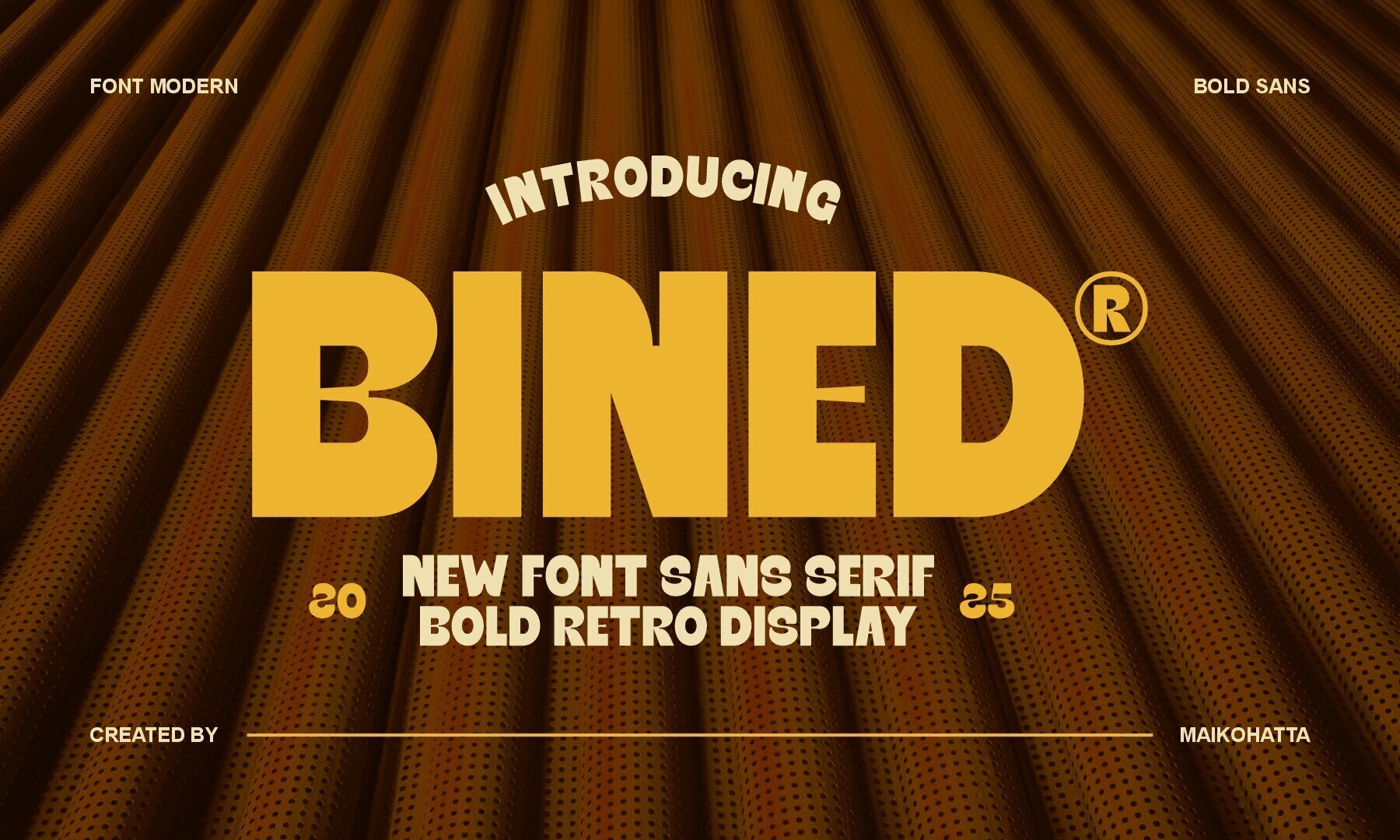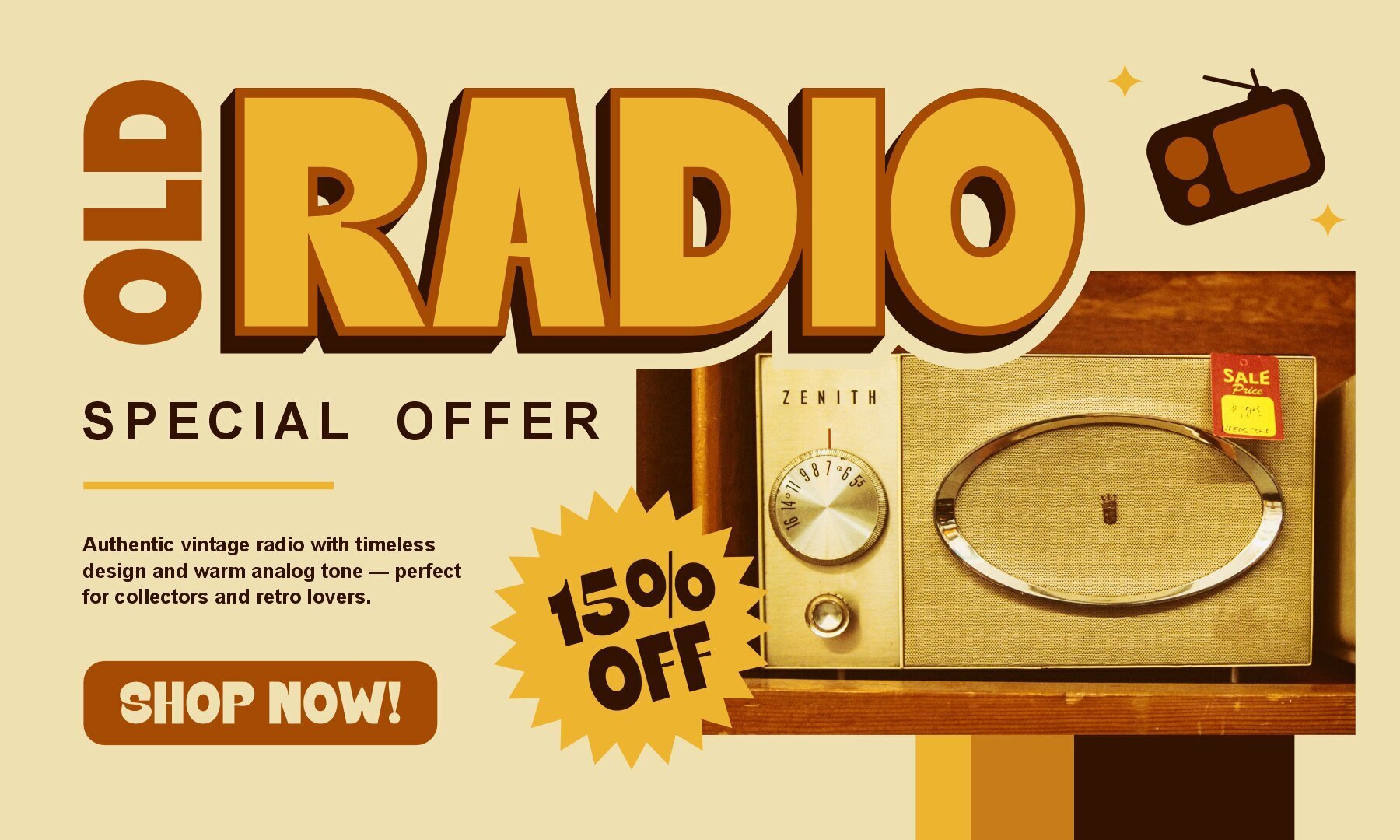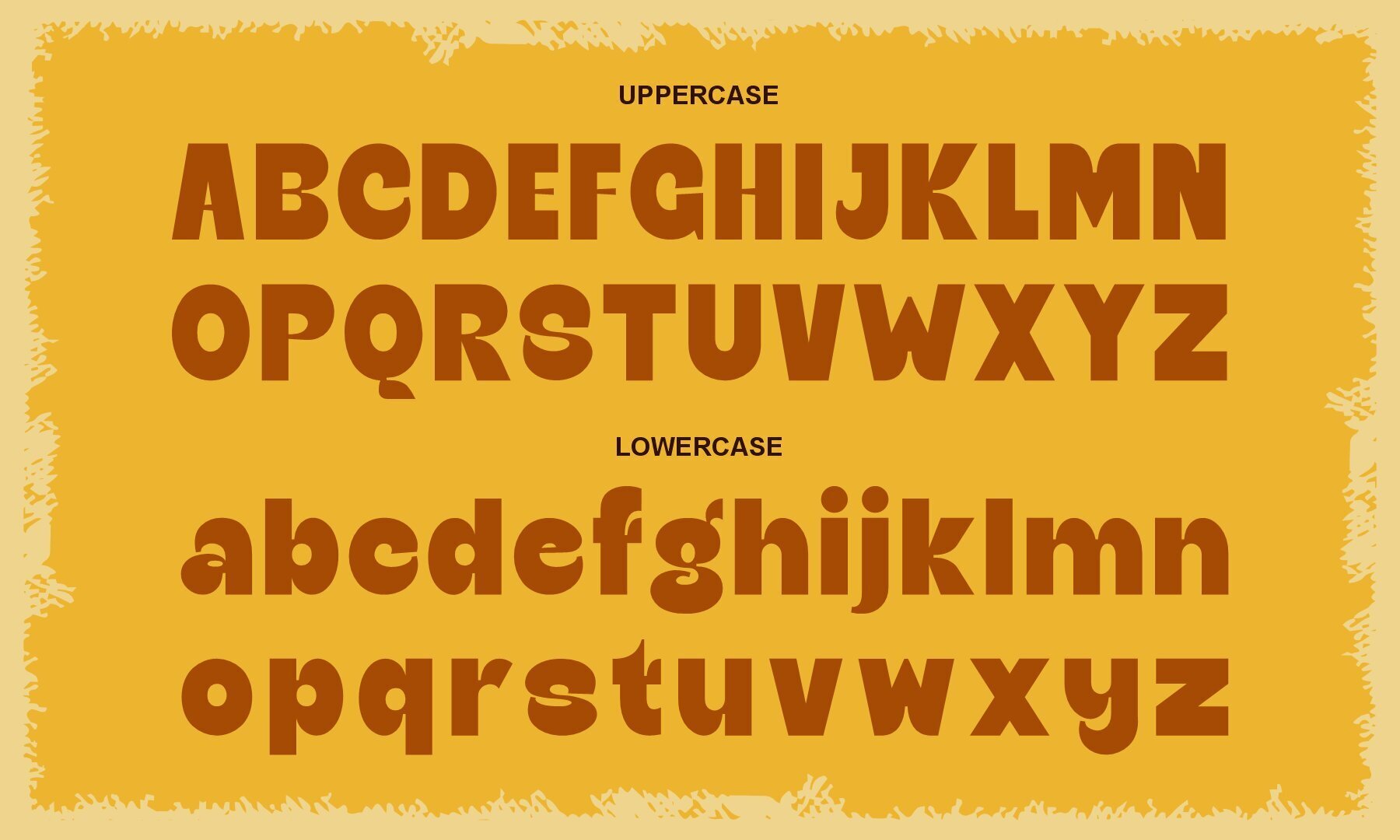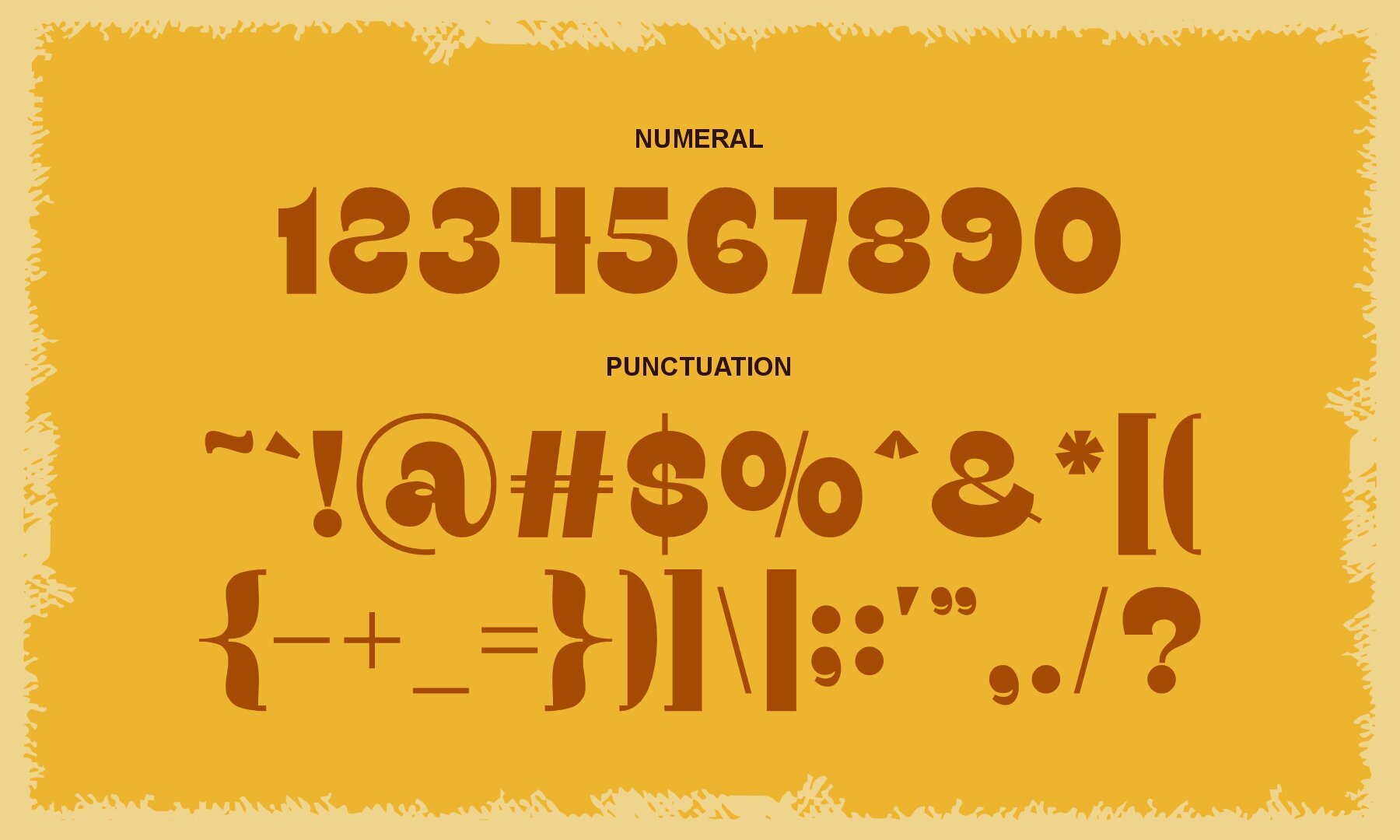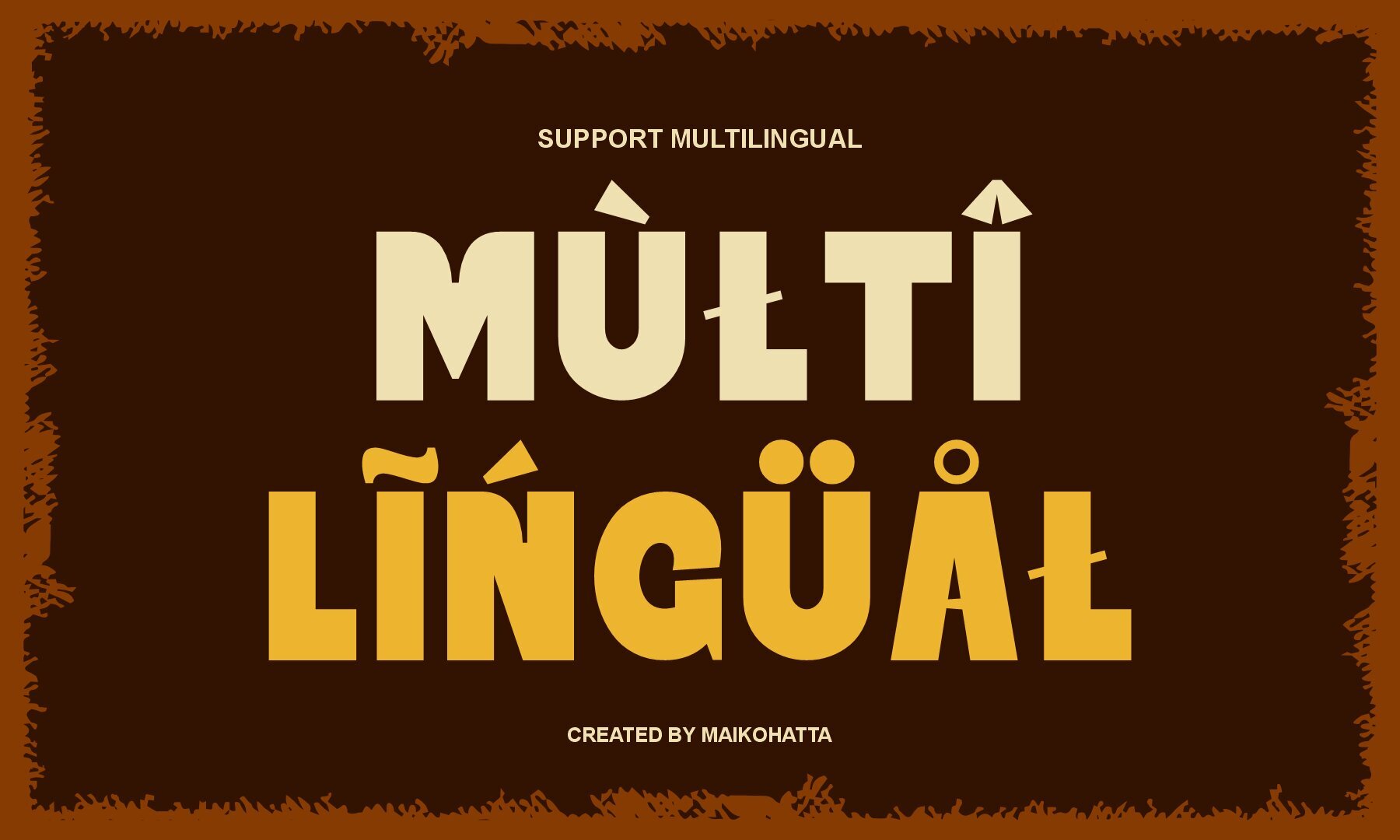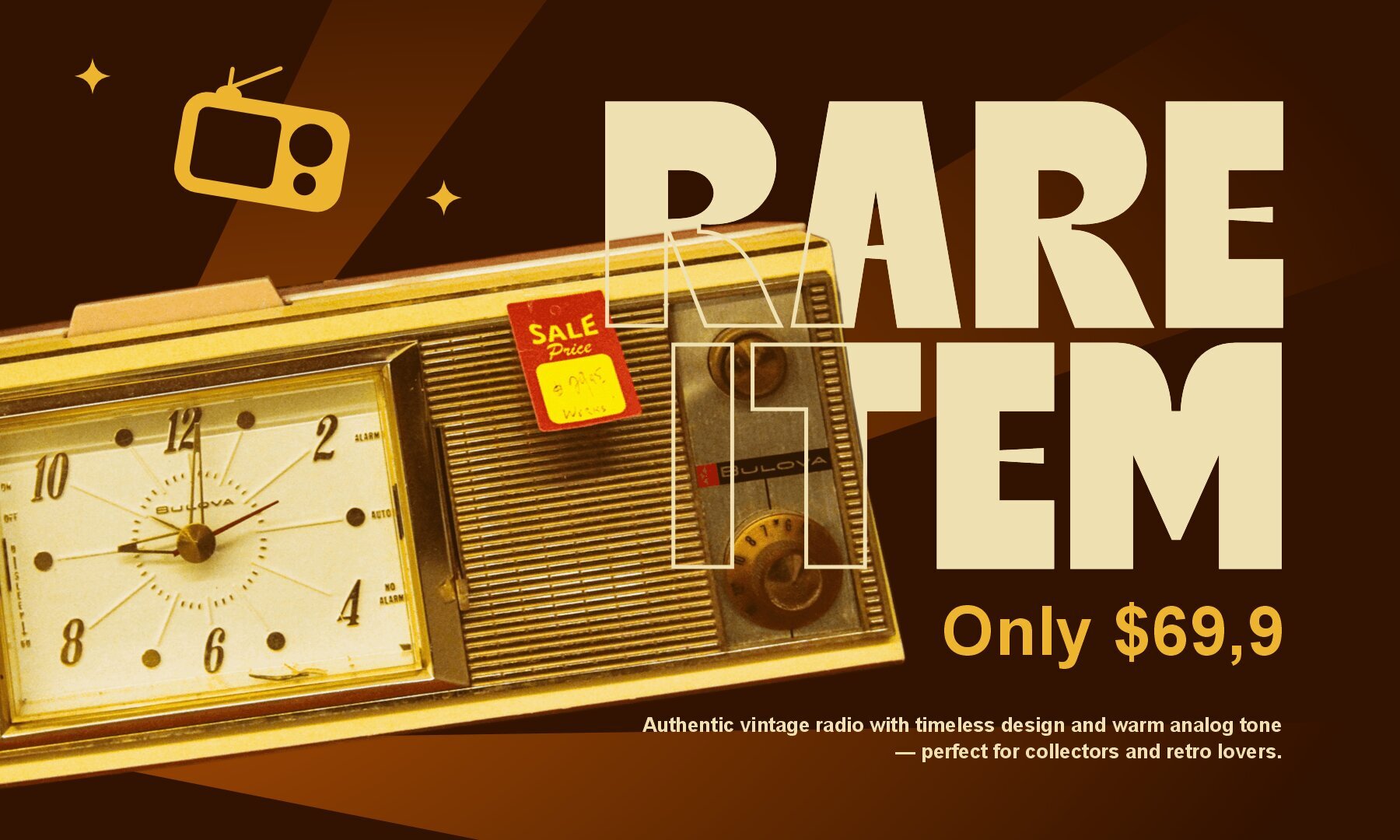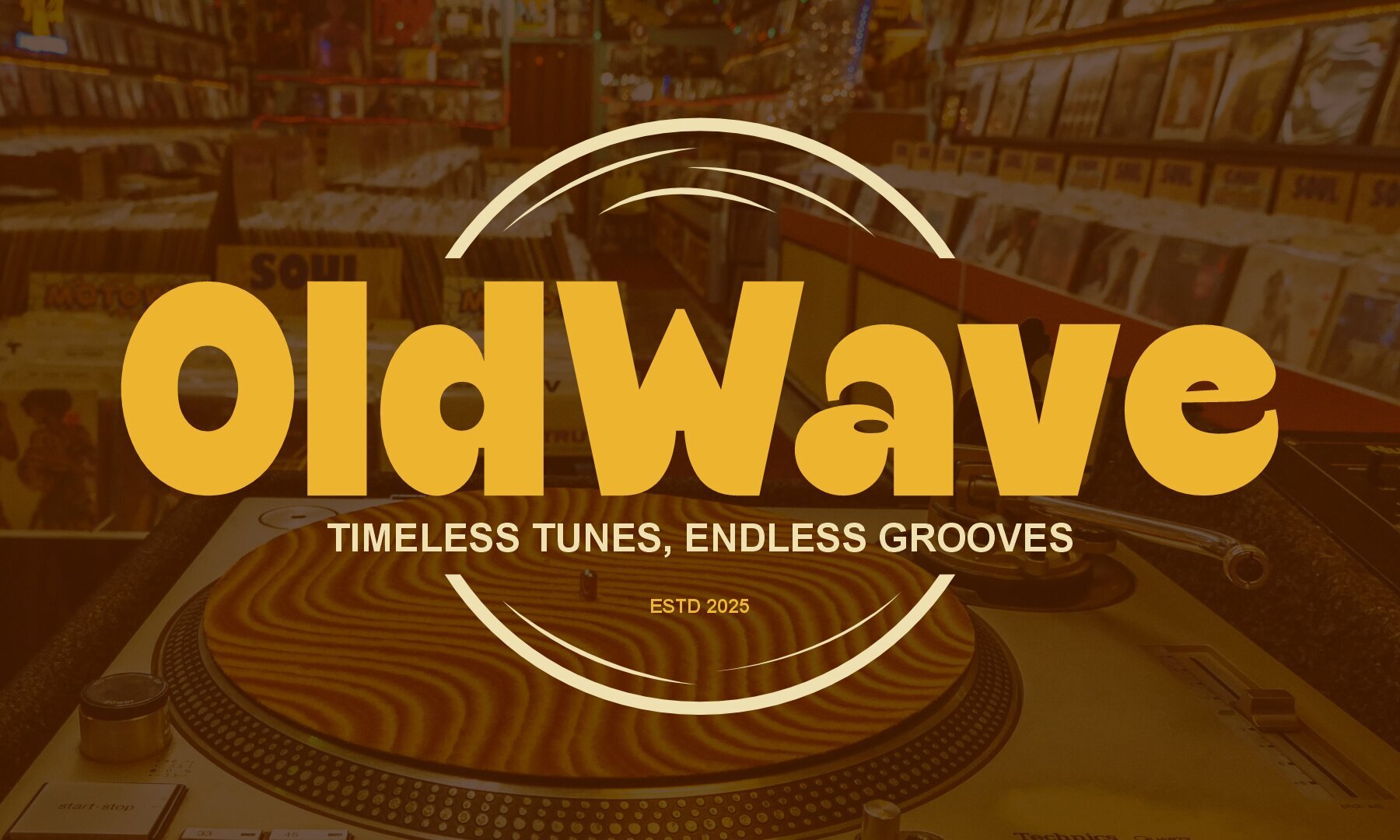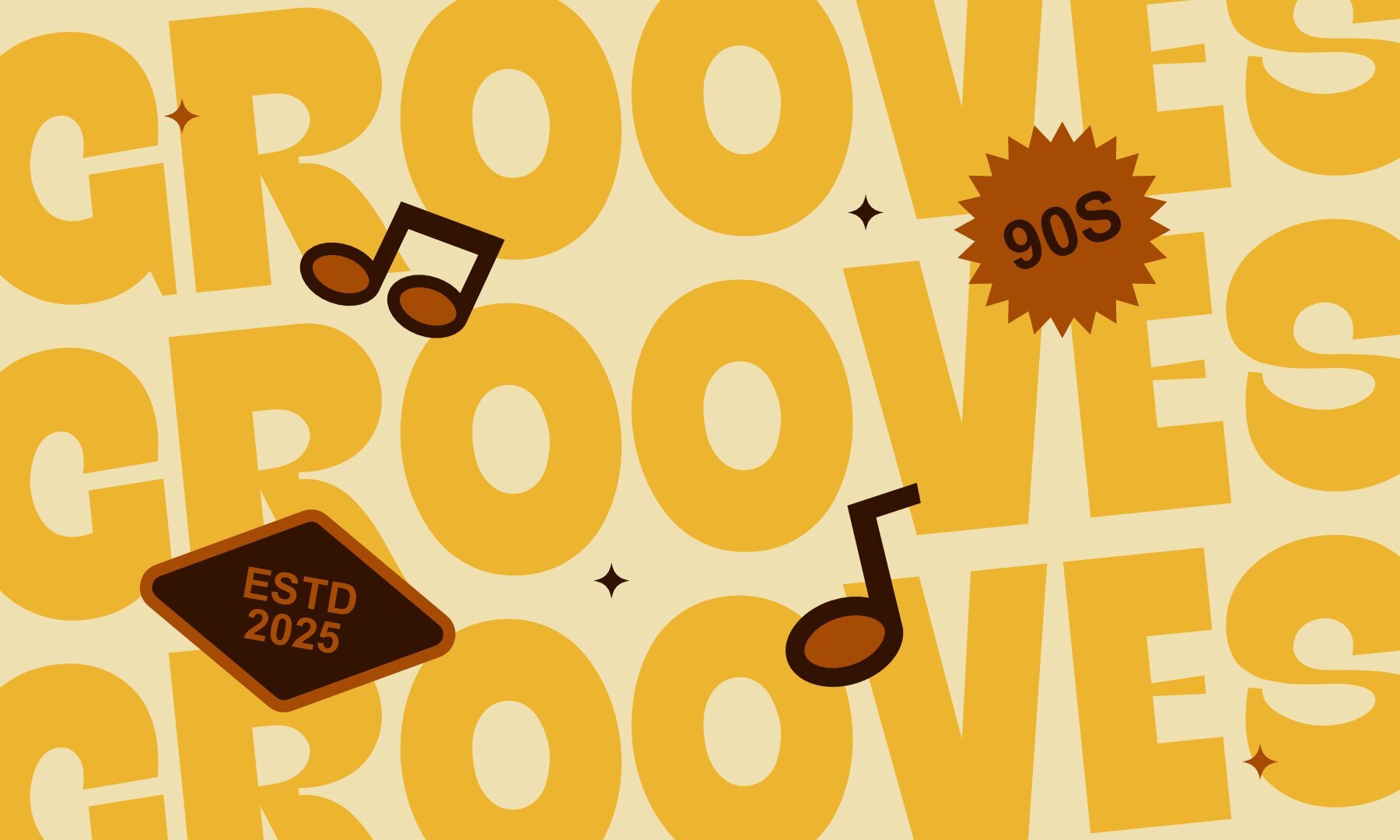
Bined Font
Bined
Introducing Bined, a modern sans serif typeface that artfully merges a bold retro aesthetic with a touch of contemporary vigor. Its thick, geometric letterforms make it ideal for commanding attention in headlines, logos, posters, and branding initiatives. Designed with precision and flair, Bined offers a nostalgic yet fresh appearance that suits both digital and print media seamlessly. Whether you're crafting retro-inspired designs or modern bold visuals, Bined infuses character and assurance into any typographic project. Its versatility makes it perfect for diverse applications, including logos, packaging, editorial designs, and more.Bined: Bold Retro Sans Serif Typeface